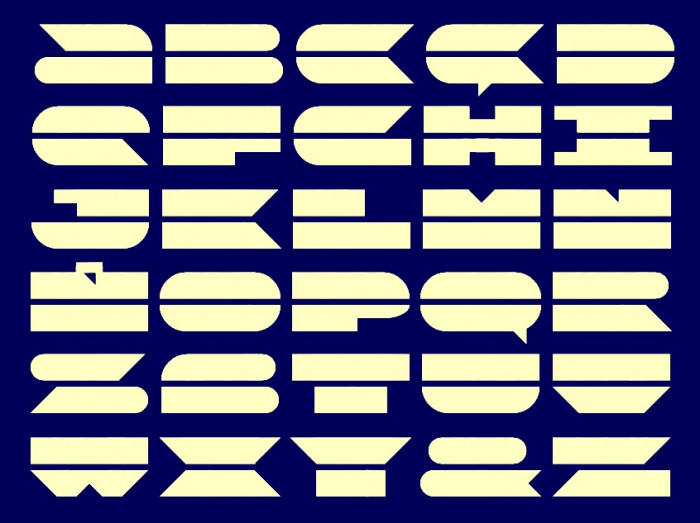
• This is one of those fonts where you put yourself to work to unload the mind of other more complicated and that give headaches. It was born for a notice that encouraged to participate in the last FutureComp and now it is finished. And I like it. I must admit that it has returned me to pleasant sensations of time ago, when all was simpler.
Such a simple, yet effective and clean design
So simple. Sooo effective. Wonderful.
@elmoyenique - Minimalist. Geometric. Futuristic. Wonderful.